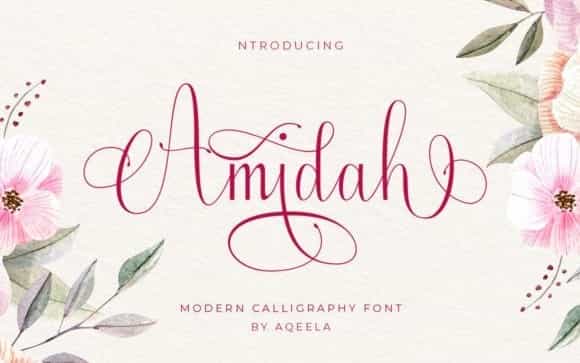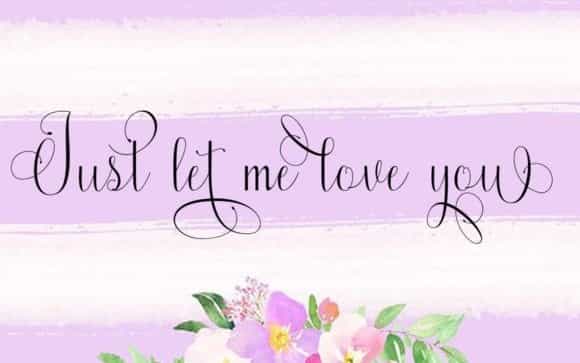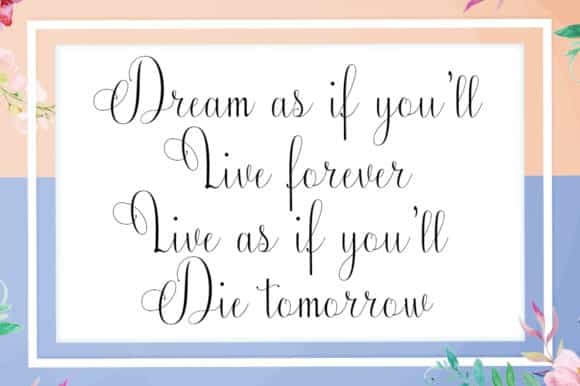
Amidah is a lovely, gentle hand-lettered calligraphy font. The playfully shaped characters are the ones that make this font ideal for producing beautiful Valentine’s Day art. Amidah includes beautiful PUA encoded swashes that you can use to add a decorative touch in just seconds.